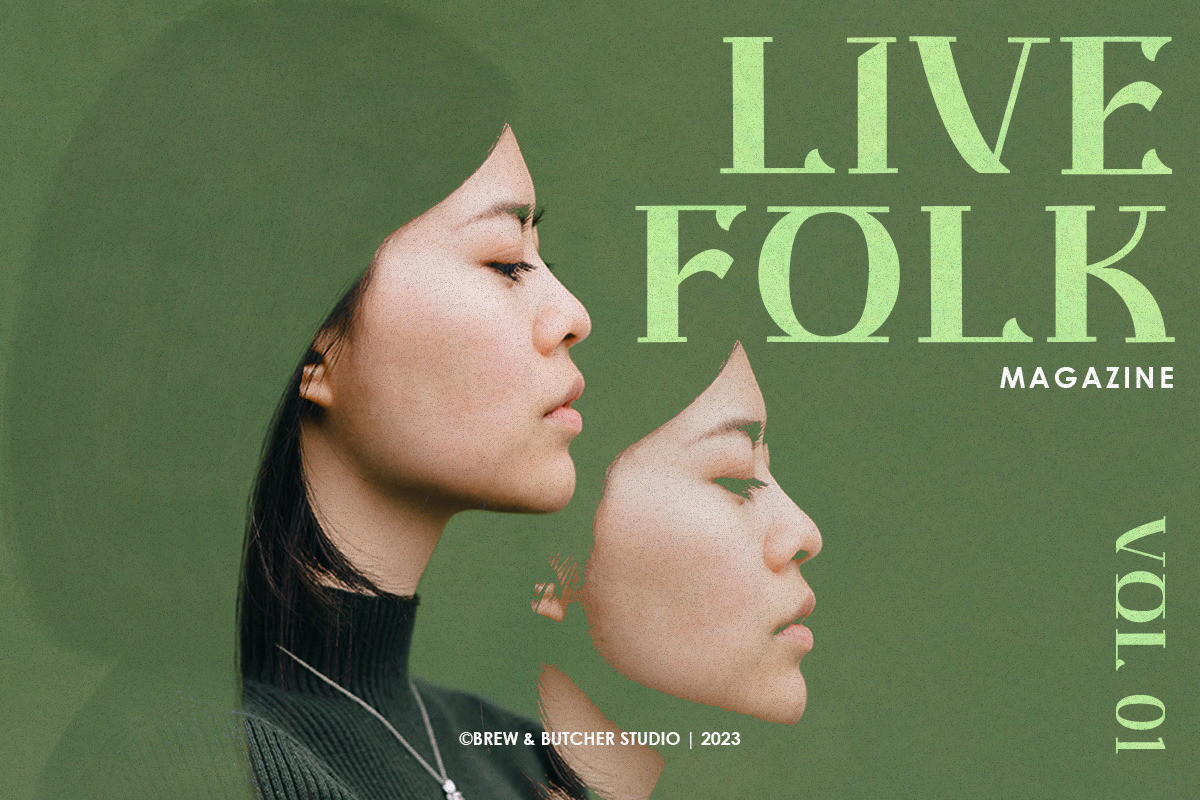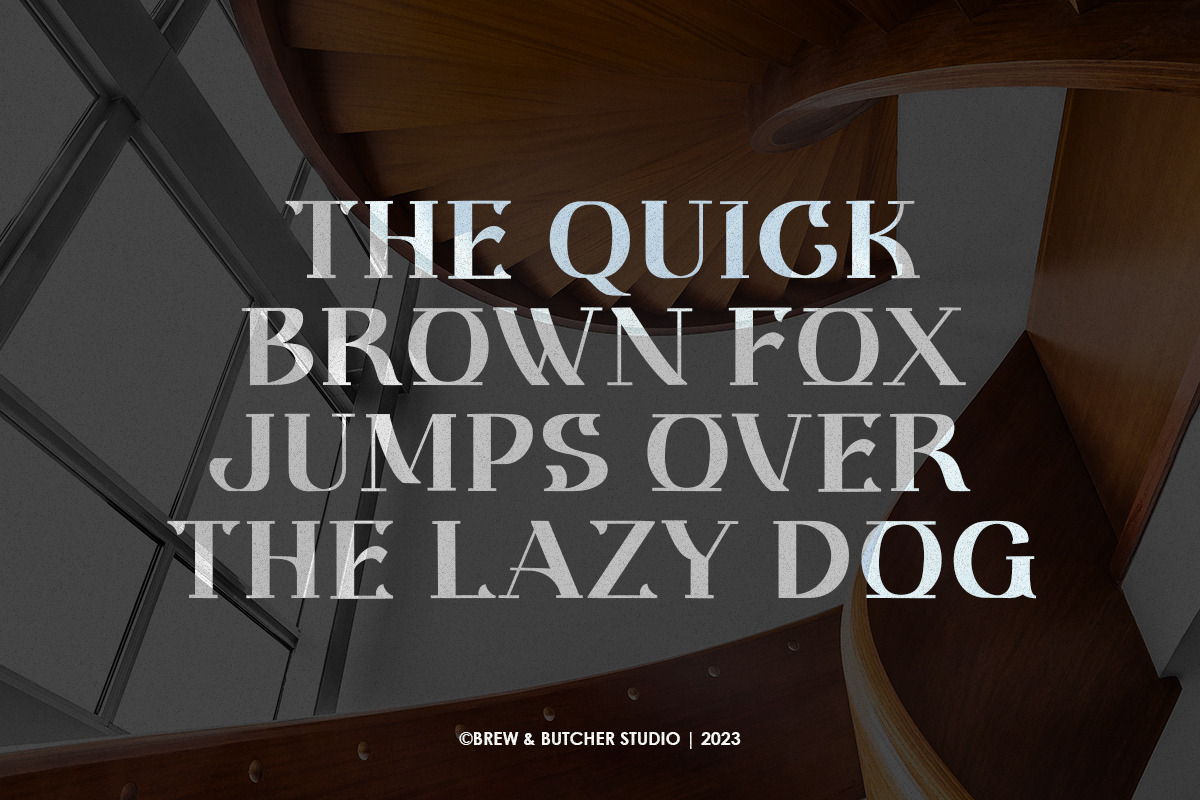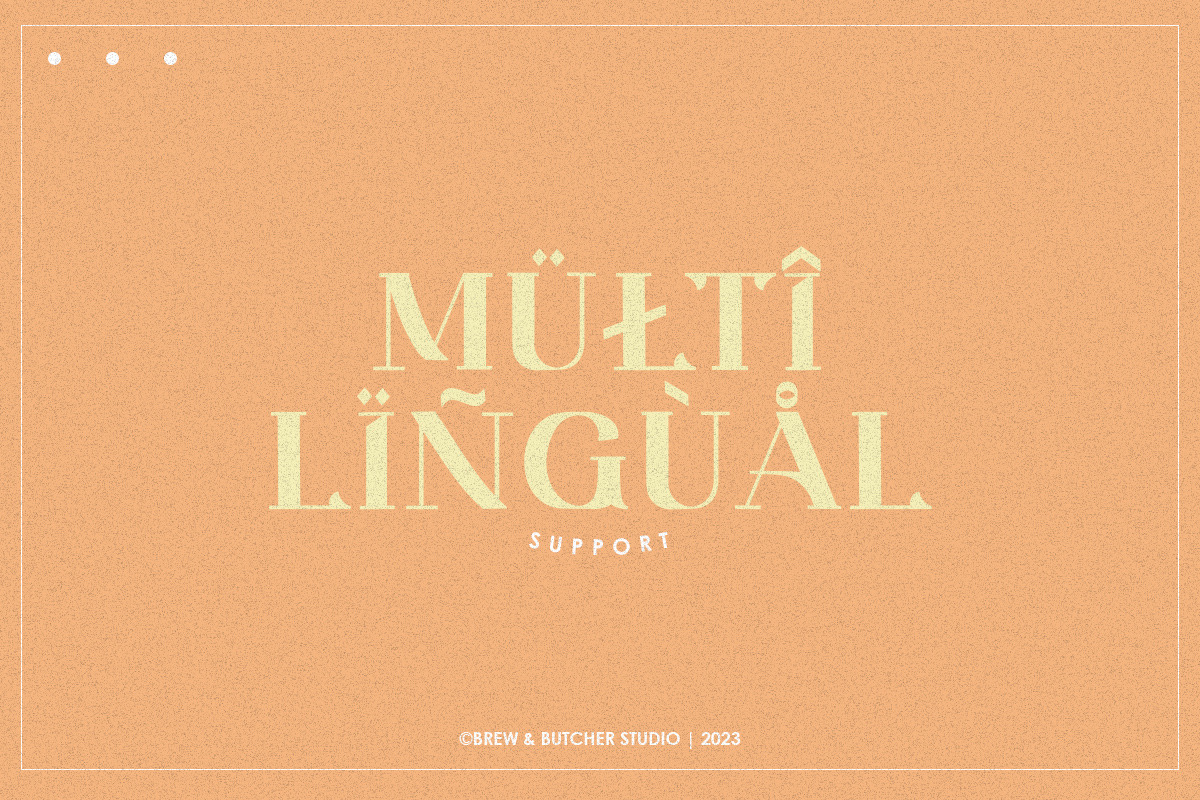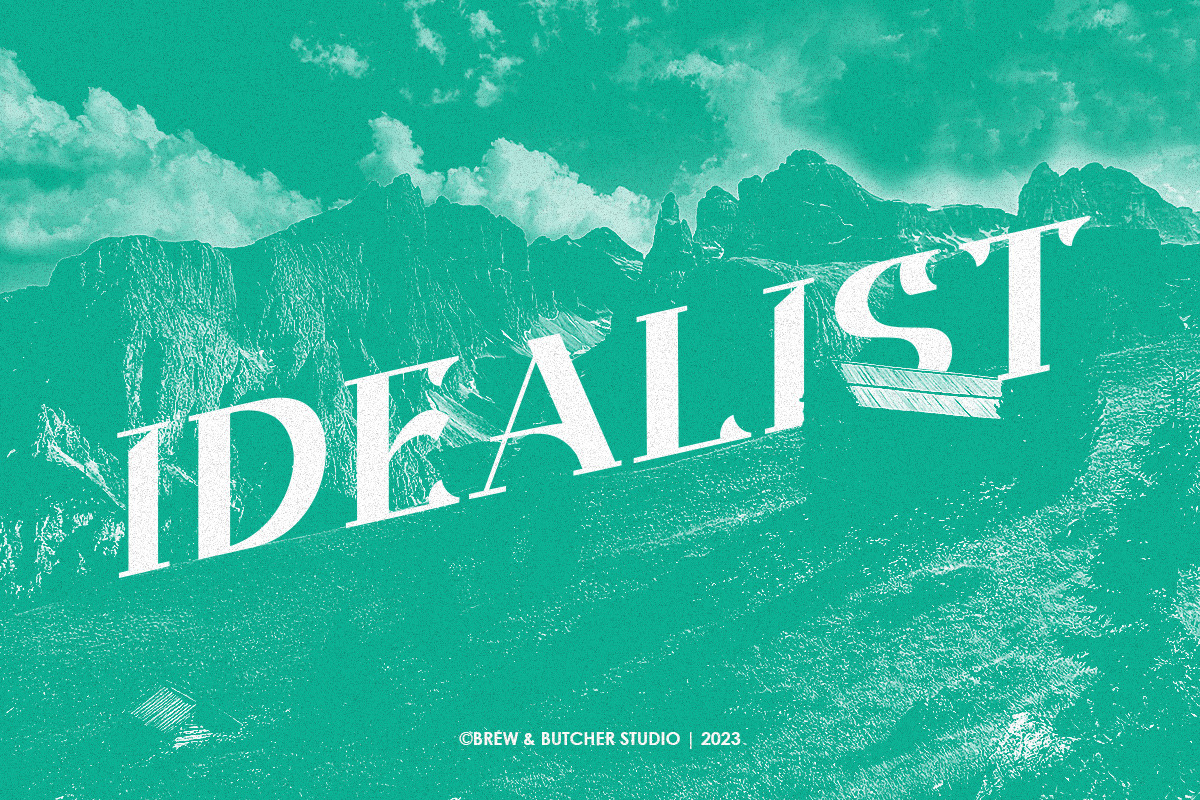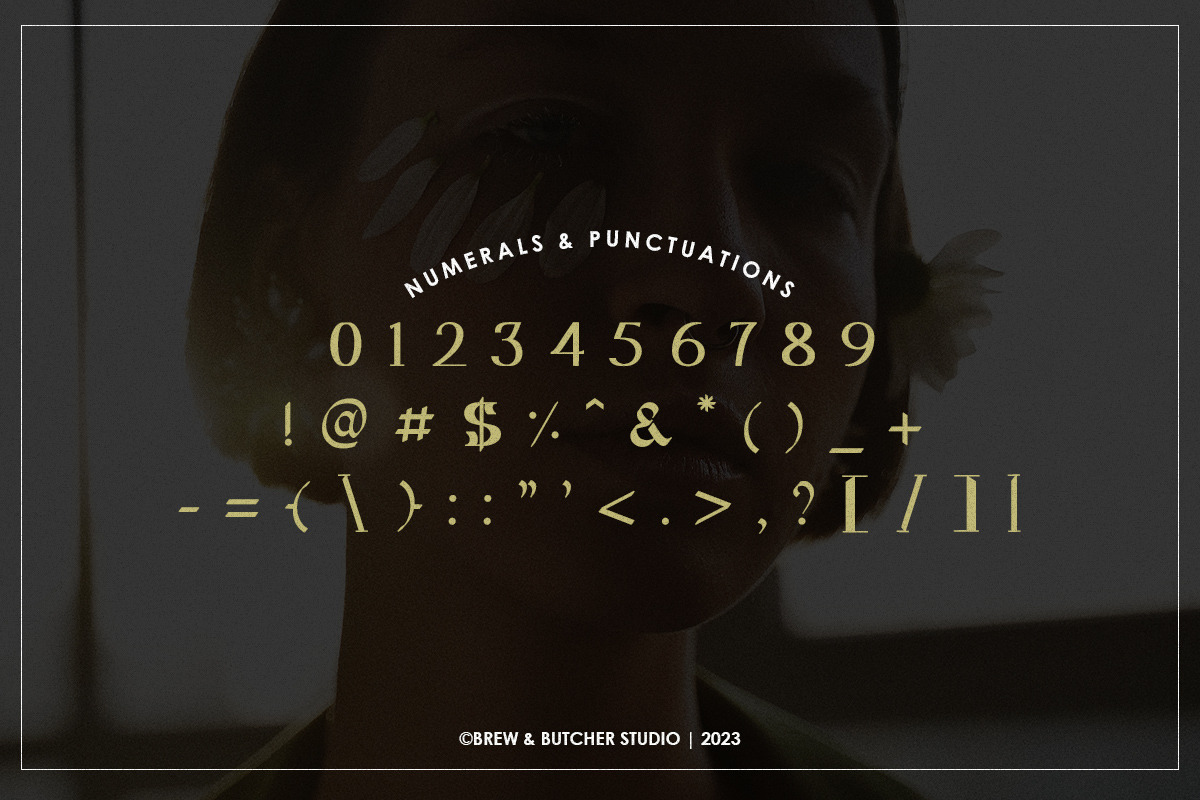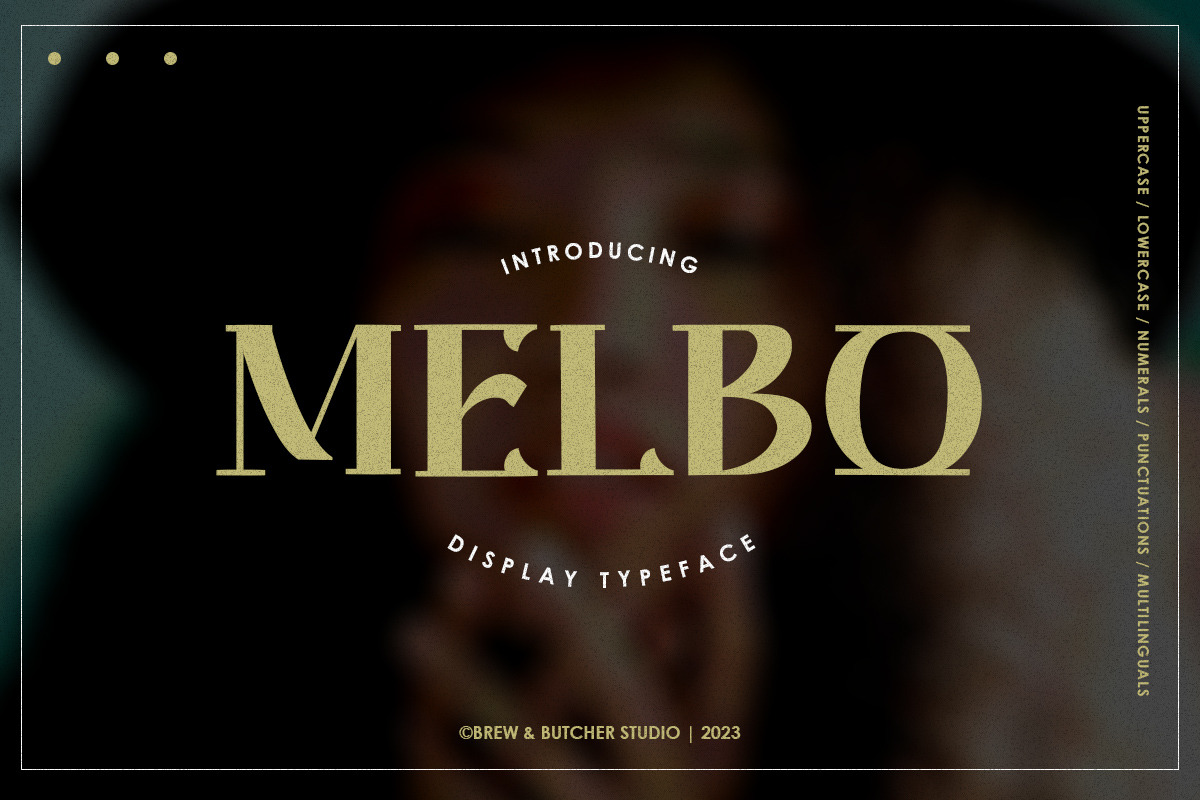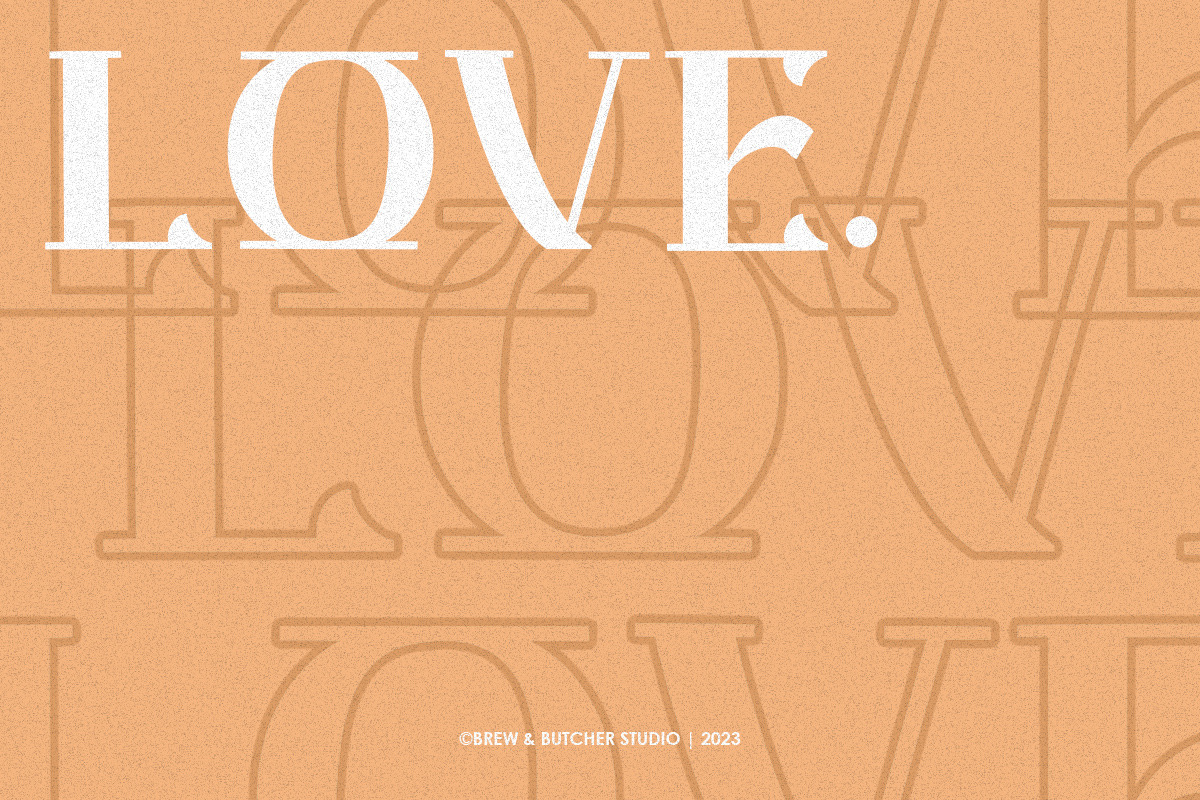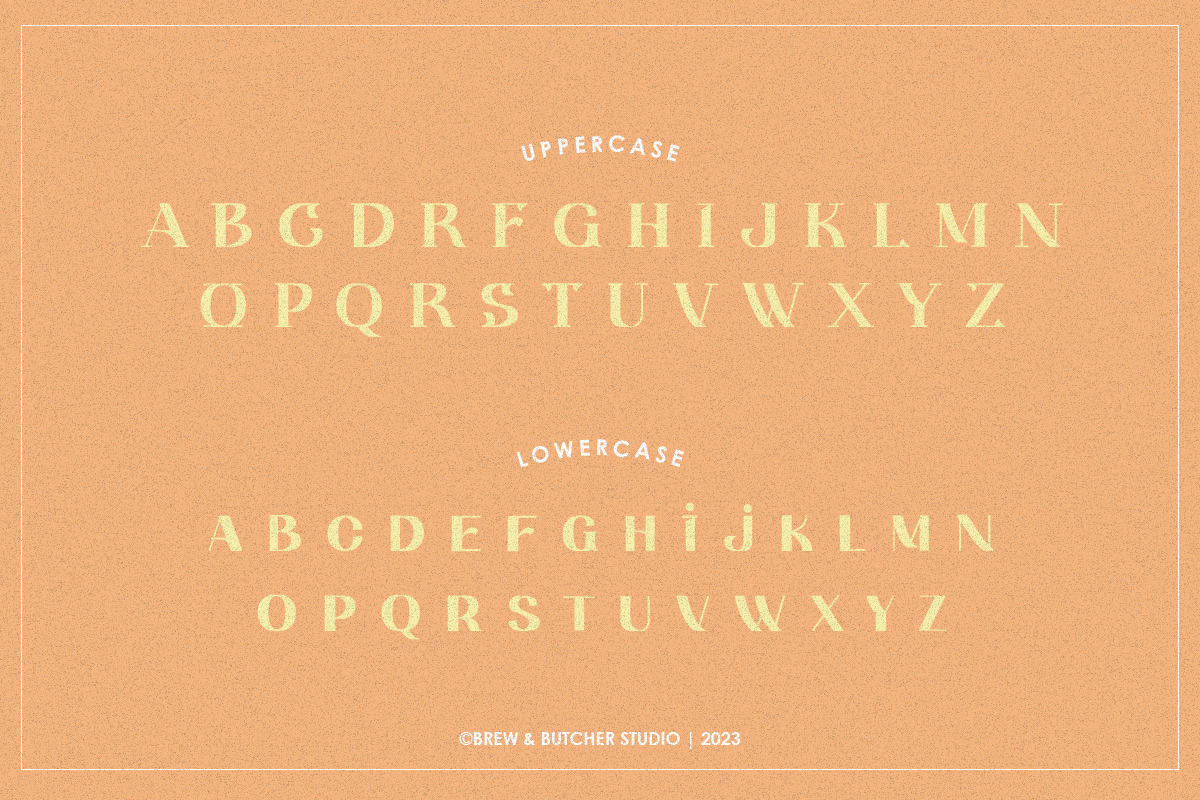
Melbo | Display Typeface
Melbo is a letter based on serif style, inspired by a classic retro style combined with modernity, which gives an elegant impression. Have a firm character in each of the lines and unique in each curves. This font is best to use for header or headline, poster, flyer, banner, landingpage, portfolio, name write, album covers, and etc.
- Multilanguage